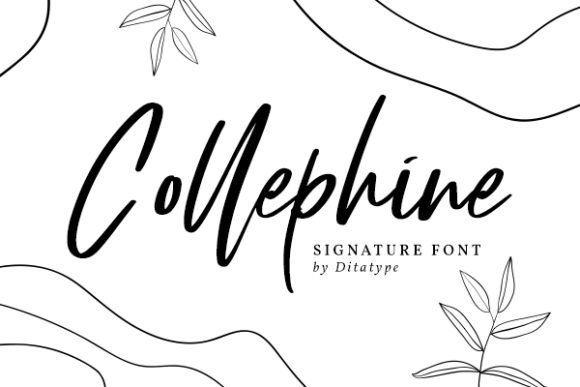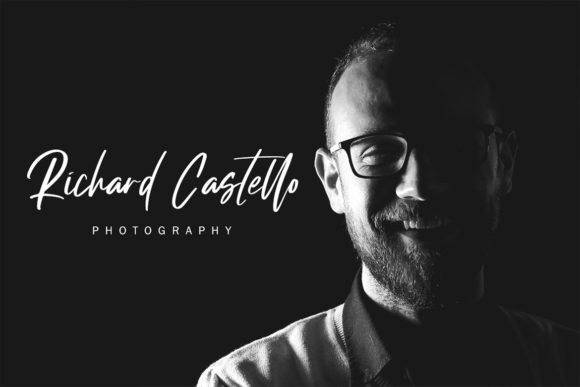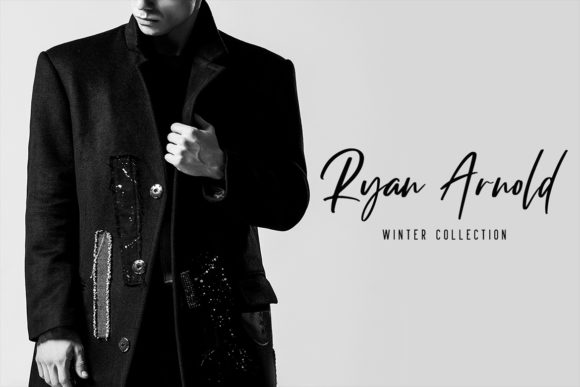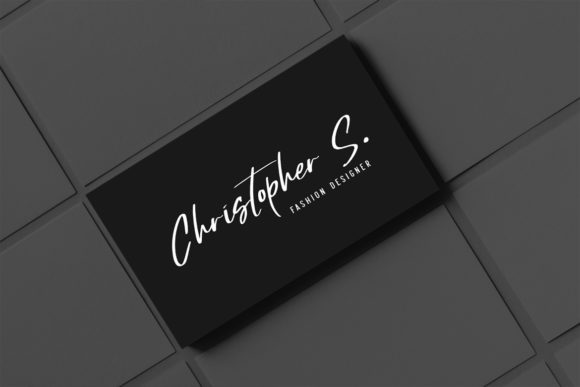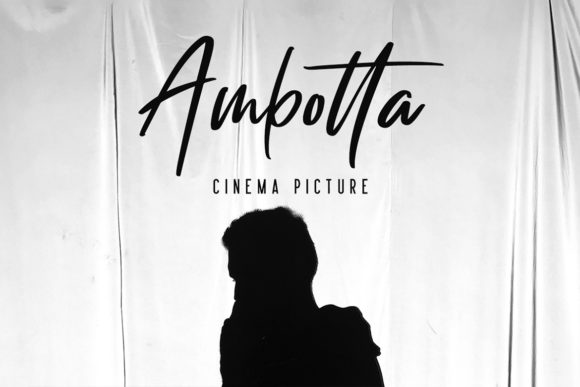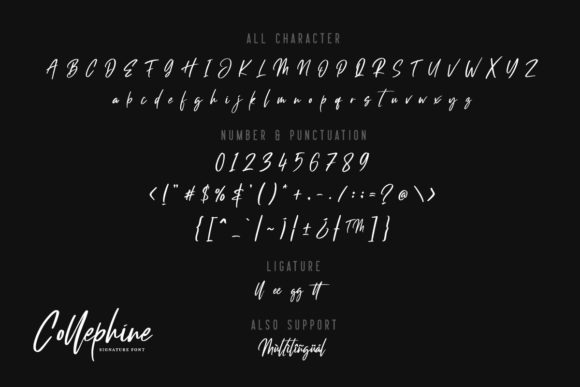
Collephine Font
About Collephine Font
Collephine is a beautiful handwritten font, created with a nostalgic touch. Collephine will help you write unforgettable wedding invitations, greeting carts, birthday invitations, titles and so much more.